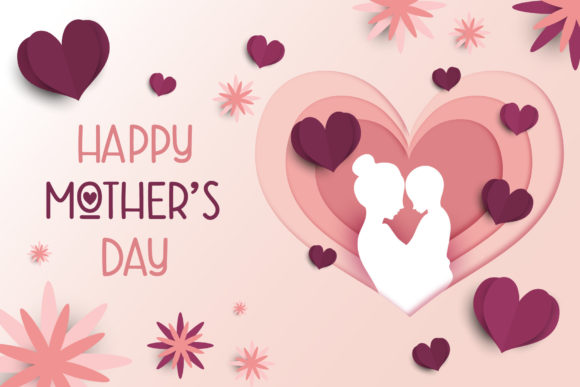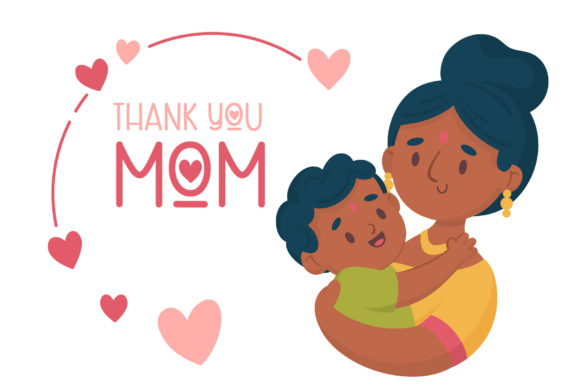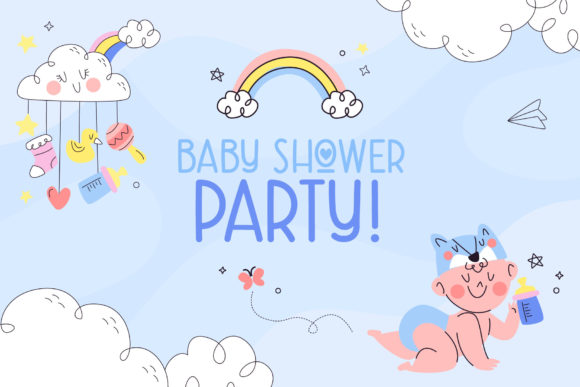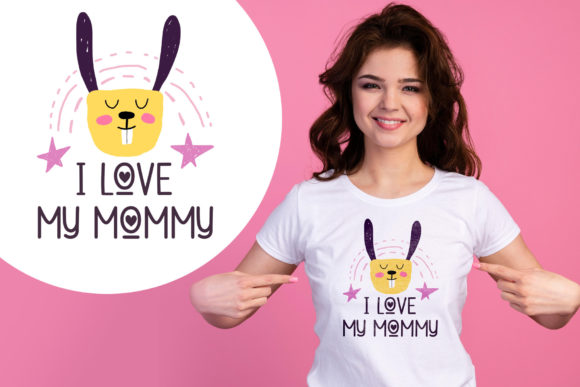
The Best Mom Font: A Cute and Versatile Handwritten Sans Serif Font
Are you looking for a font that’s perfect for Mother’s Day cards, wedding designs, and children’s themed projects? Look no further than the Best Mom font! This adorable handwritten Sans Serif font is not only cute, clean, and simple, but it’s also incredibly versatile. In this article, we’ll dive into the features and benefits of the Best Mom font, and explore how you can use it to take your designs to the next level.
What is the Best Mom Font?
The Best Mom font is a handwritten Sans Serif font that’s specifically designed to be easy to read and visually appealing. Its clean and simple lines make it perfect for a wide range of design projects, from romantic movie titles to Christmas greetings. The font’s playful and whimsical feel also makes it ideal for children’s themed designs, especially when paired with bright colors.
Key Features of the Best Mom Font
- Cute and Playful: The Best Mom font has a unique and adorable handwritten feel that’s sure to capture the hearts of your audience.
- Clean and Simple: The font’s clean lines and simple design make it easy to read and versatile enough to use in a wide range of projects.
- Handwritten Sans Serif: The font’s handwritten feel and Sans Serif design make it perfect for a wide range of design projects.
Use Cases for the Best Mom Font
The Best Mom font is incredibly versatile, and can be used in a wide range of design projects. Here are some ideas to get you started:
- Mother’s Day Cards: Create beautiful and heartfelt Mother’s Day cards with the Best Mom font.
- Wedding Designs: Use the Best Mom font to create stunning wedding invitations, decorations, and other wedding-related designs.
- Children’s Themed Designs: The Best Mom font is perfect for children’s themed designs, such as kids’ party invitations, nursery decor, and children’s book illustrations.
- Romantic Movie Titles: Use the Best Mom font to create eye-catching romantic movie titles and posters.
- Christmas Greetings: Create beautiful and festive Christmas greetings with the Best Mom font.
- Valentines: Use the Best Mom font to create romantic and adorable Valentine’s Day designs.
Why Designers and Crafters Love the Best Mom Font
Designers and crafters love the Best Mom font for many reasons. Here are a few:
- Ease of Use: The Best Mom font is incredibly easy to use, even for those who are new to design.
- Versatility: The font’s versatility makes it perfect for a wide range of design projects.
- Unique and Adorable: The Best Mom font has a unique and adorable handwritten feel that’s sure to make your designs stand out.
In conclusion, the Best Mom font is a must-have for designers and crafters who want to create beautiful and adorable designs. Its cute and playful handwritten feel, clean and simple lines, and PUA encoding make it perfect for a wide range of design projects. Whether you’re creating Mother’s Day cards, wedding designs, or children’s themed projects, the Best Mom font is sure to be a hit. So why wait? Download the Best Mom font today and start creating your own stunning designs!
Tips and Tricks for Using the Best Mom Font
Here are some tips and tricks for using the Best Mom font:
- Pair it with Bright Colors: The Best Mom font looks amazing when paired with bright colors, especially in children’s themed designs.
- Experiment with Different Sizes: The font’s clean and simple lines make it perfect for use in a wide range of sizes, from small captions to large headlines.
- Use it with Other Fonts: The Best Mom font can be paired with other fonts to create stunning and unique designs.